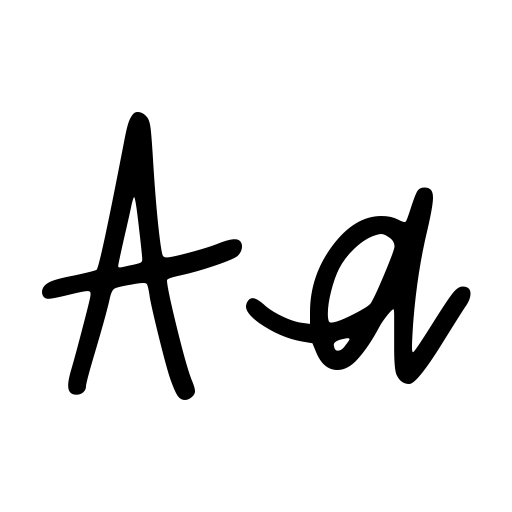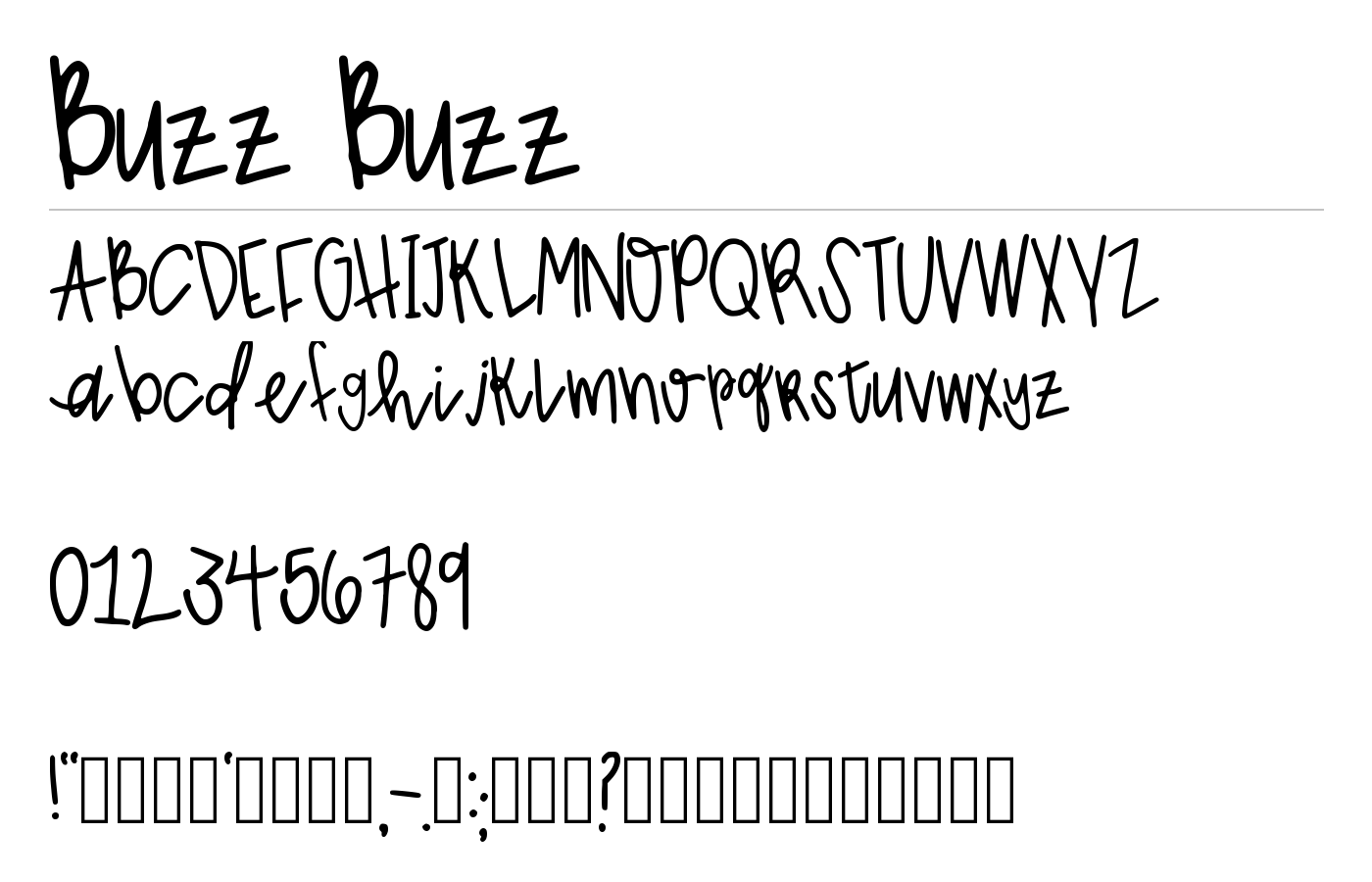
Buzz Buzz Font is a playful and casual handwritten typeface with a lively, irregular rhythm that captures a friendly, energetic vibe. Its tall, narrow letterforms and consistent stroke weight give it a youthful and approachable style, making it perfect for informal designs, kids' materials, or creative projects seeking a fun, personal touch. This font shines in headlines, logos, and packaging where an inviting and lighthearted feel is desired.
Buzz Buzz Font
About Buzz Buzz Font